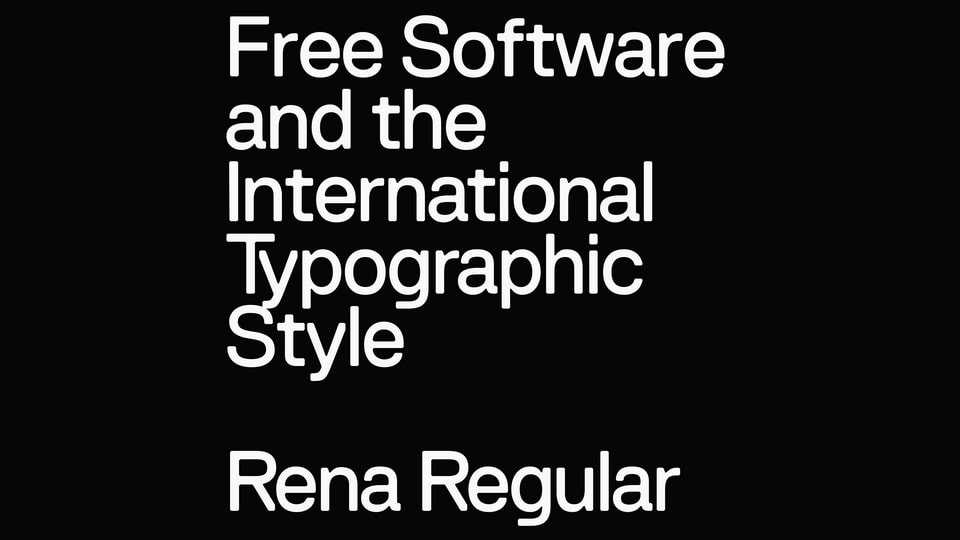
Download Rena font, a clean, versatile sans serif typeface designed with smooth, modern shapes that convey simplicity and elegance. Rena features gently rounded curves and uniform strokes, creating a harmonious balance that is easy on the eyes.
Designer: Eli Heuer